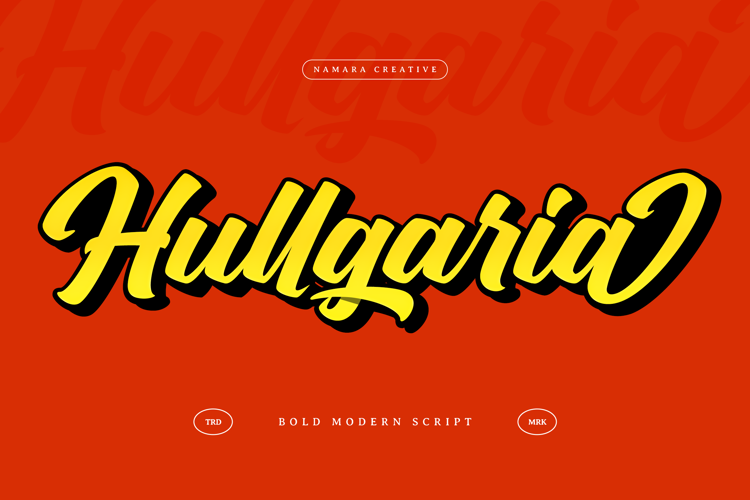
Hullgaria Font
Hullgaria is a bold modern script font that blends retro charm with a clean, confident brush style. Designed for standout visuals, it’s perfect for logos, branding, sports merch, apparel, posters, and packaging.